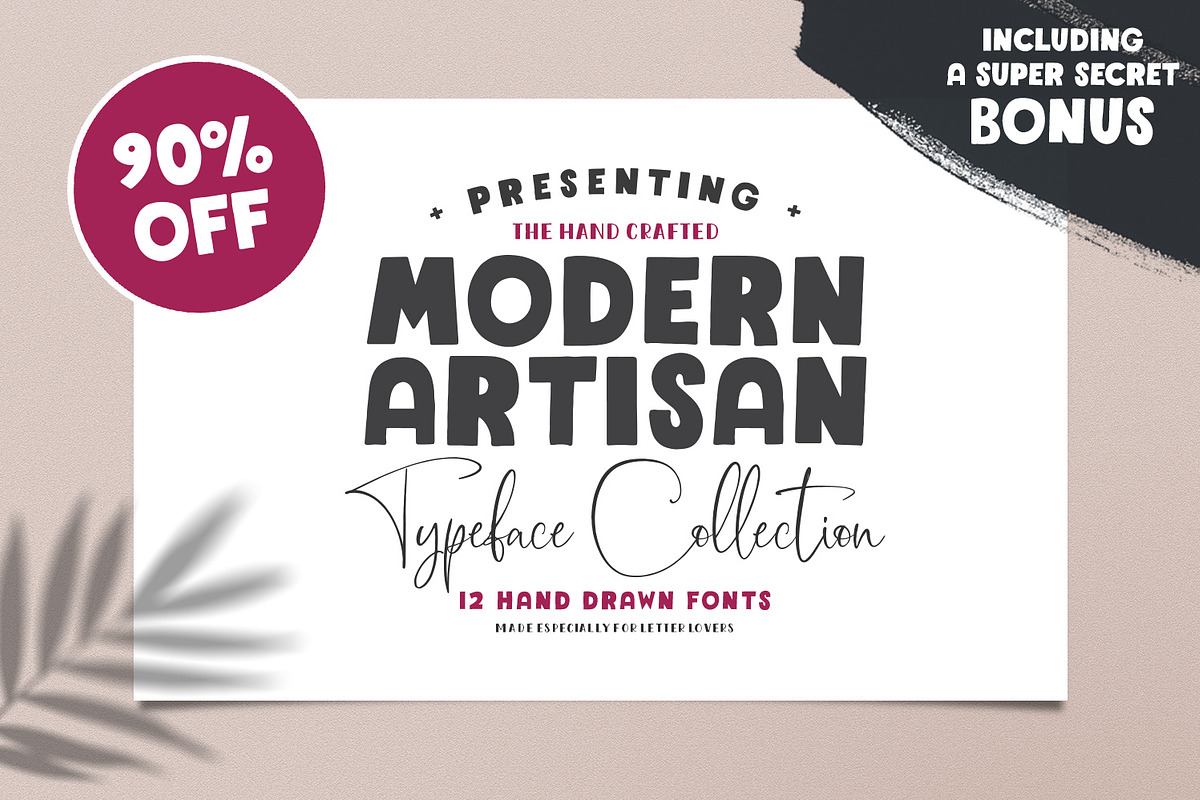
The Modern Artisan Font Collection Free Download
The Modern Artisan Font Collection Free Download is a carefully curated bundle of elegant and handcrafted typefaces, perfect for modern branding, editorial layouts, and stylish invitations. With a mix of sophisticated serifs, clean sans-serifs, and charming scripts, this collection offers versatility for any creative project. Please note that you must purchase this font for commercial use, but it is available as a free download for testing purposes. Bring an artisan touch to your designs with The Modern Artisan Font Collection Free Download, and explore the perfect balance of creativity and craftsmanship.